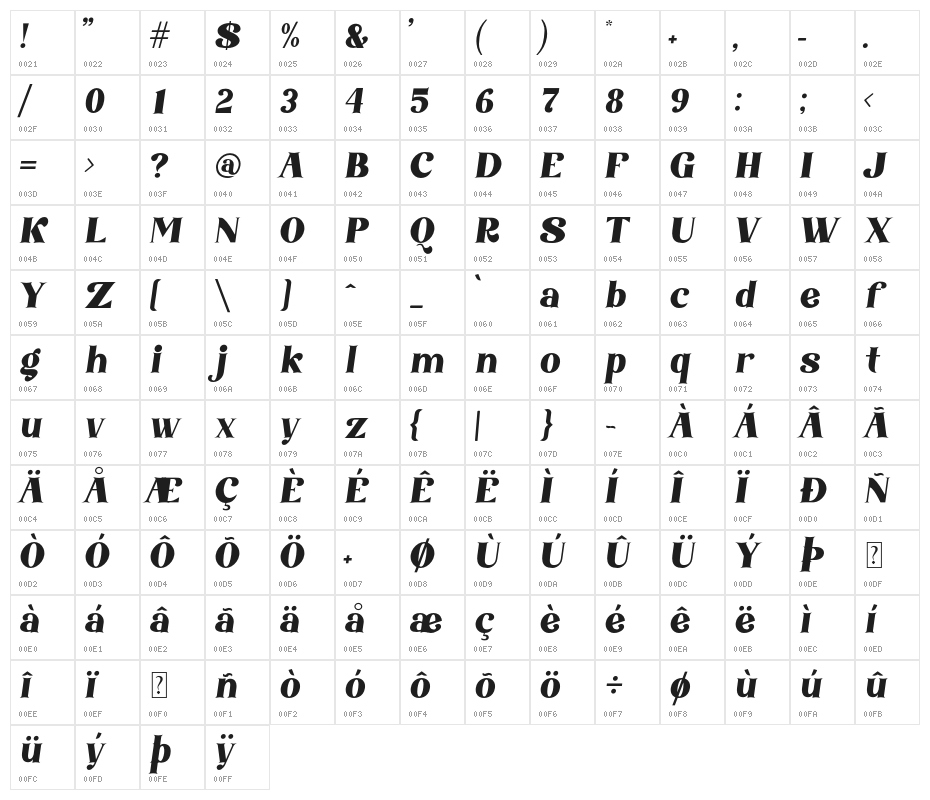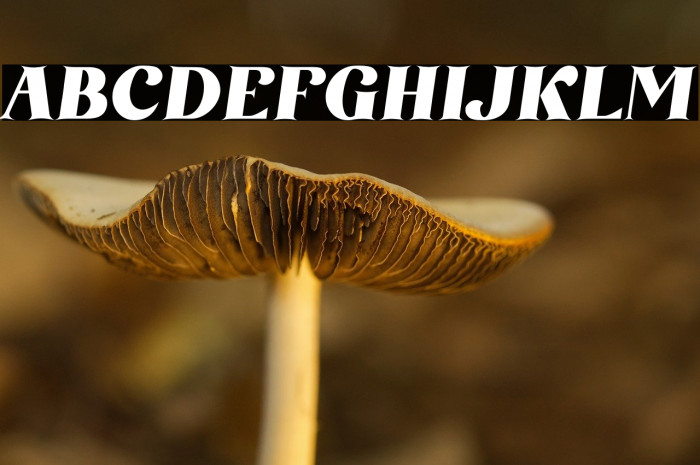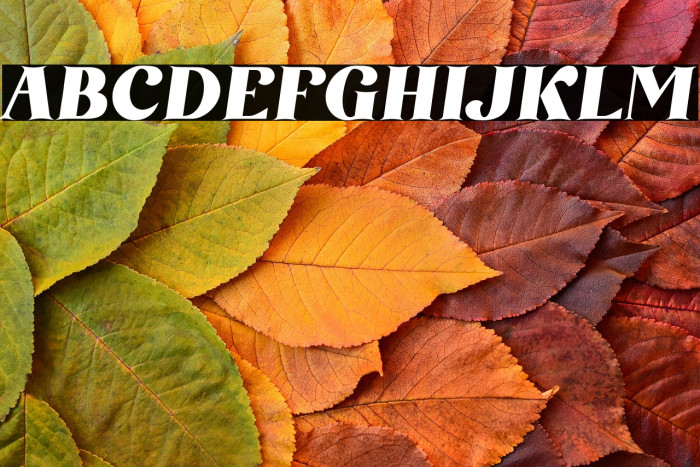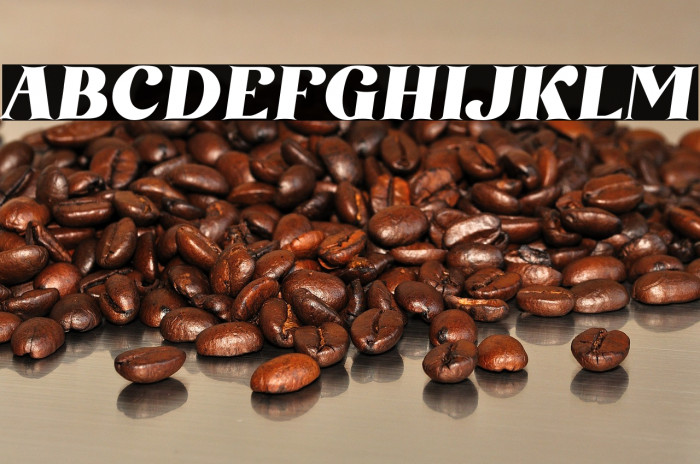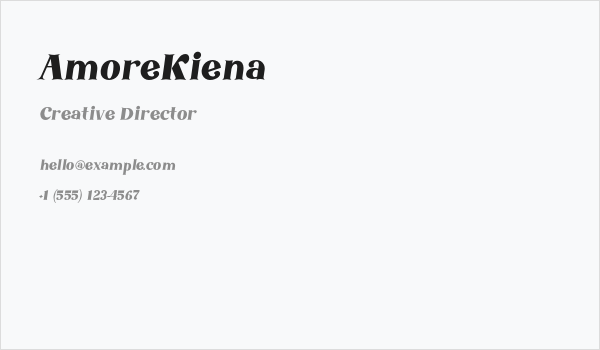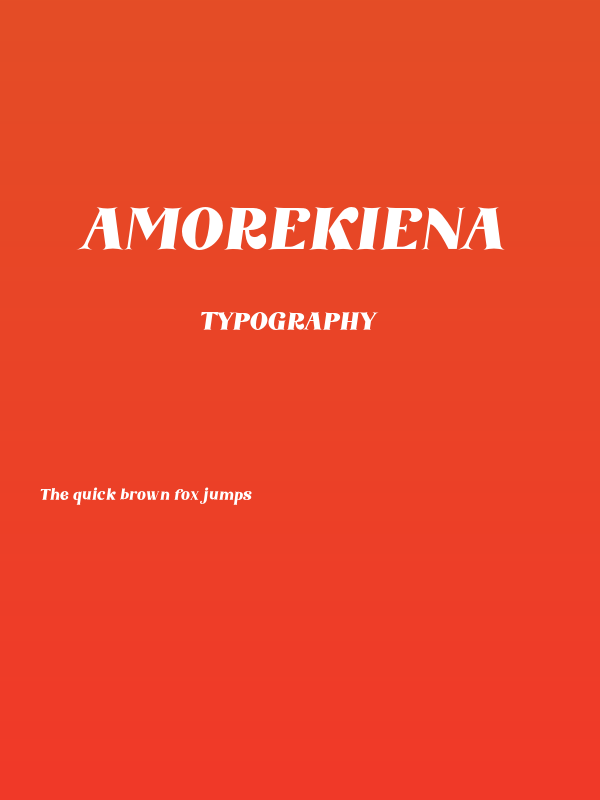
AmoreKiena Font
AmoreKiena Description
This font features a bold and dynamic style with a strong presence. The characters exhibit a slight slant, adding a sense of movement and energy. The strokes are thick and consistent, providing a robust and confident appearance. The serifs are pronounced, giving the font a classic yet modern feel. The uppercase letters are particularly striking, with a commanding presence that makes them ideal for headlines or titles. The lowercase letters maintain the same boldness, ensuring readability and impact. Numbers and special characters are designed with the same attention to detail, making them versatile for various uses.
| Proposed Projects | Ideal for branding, headlines, posters, and any project requiring a strong, impactful typeface. |